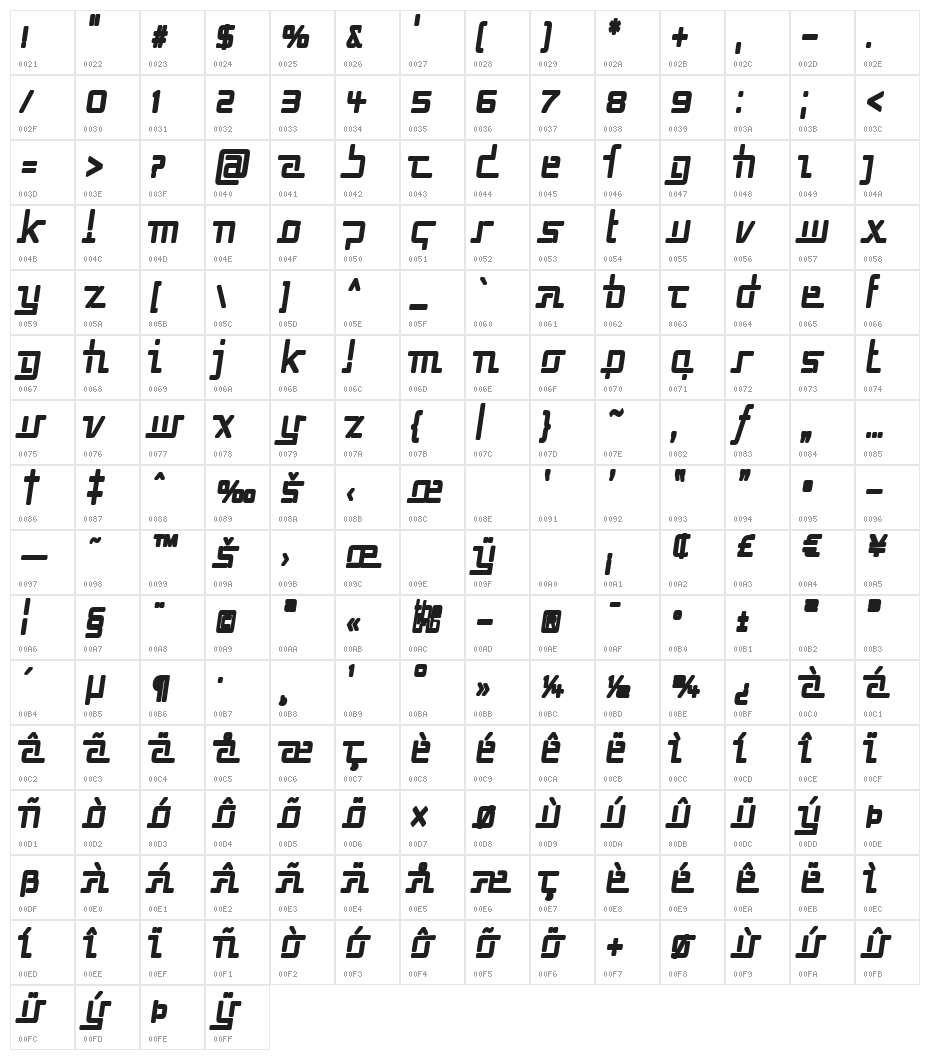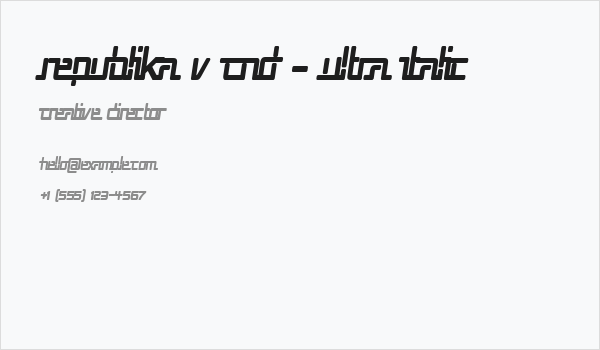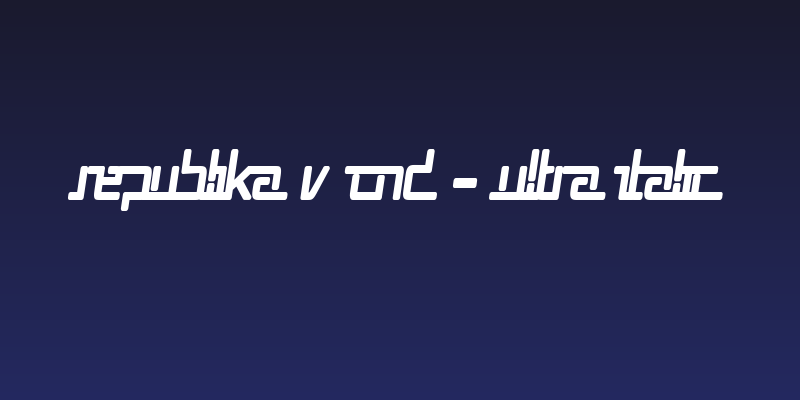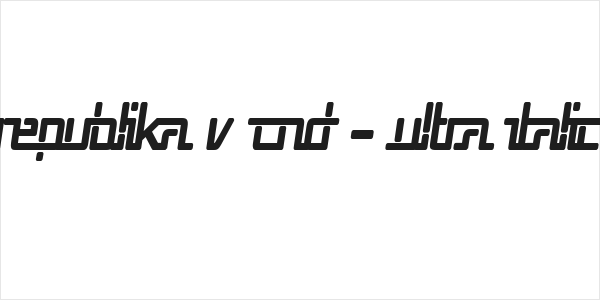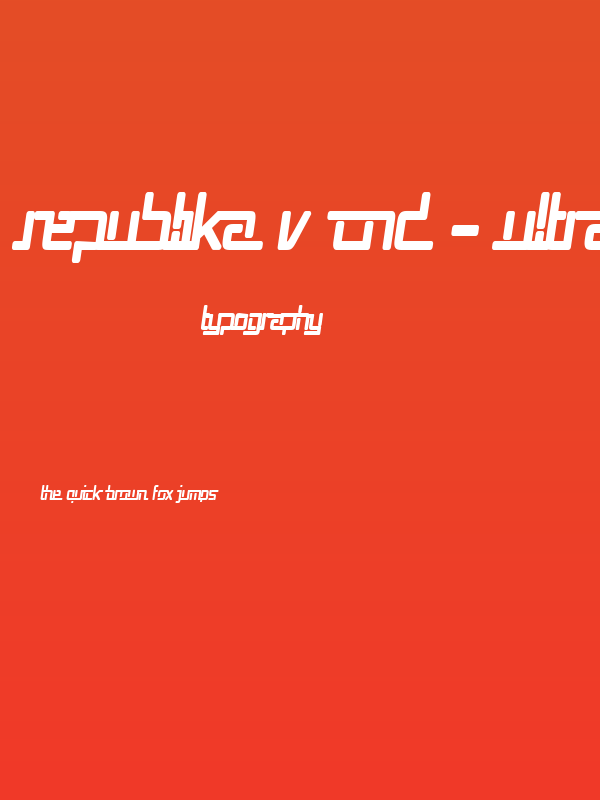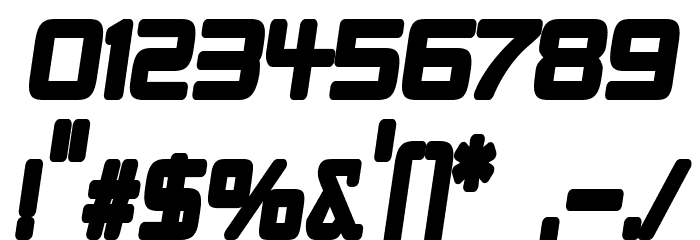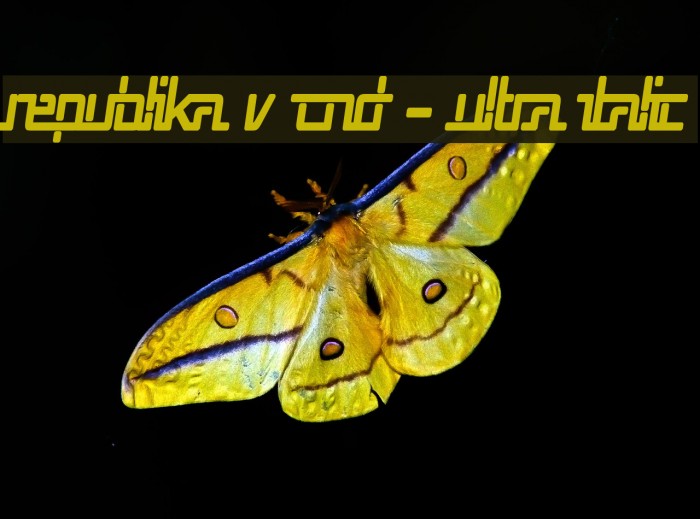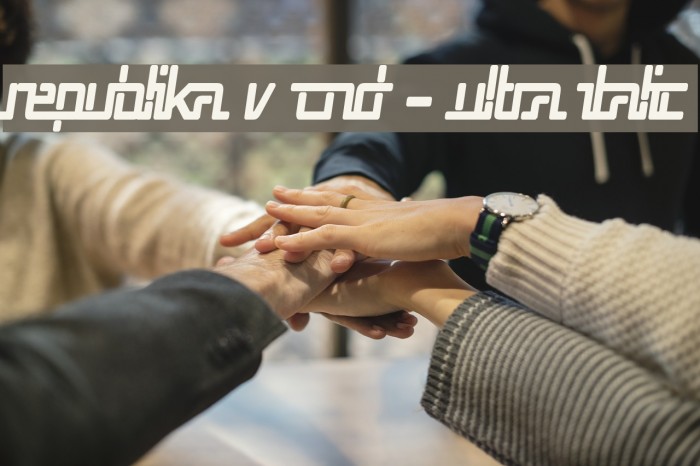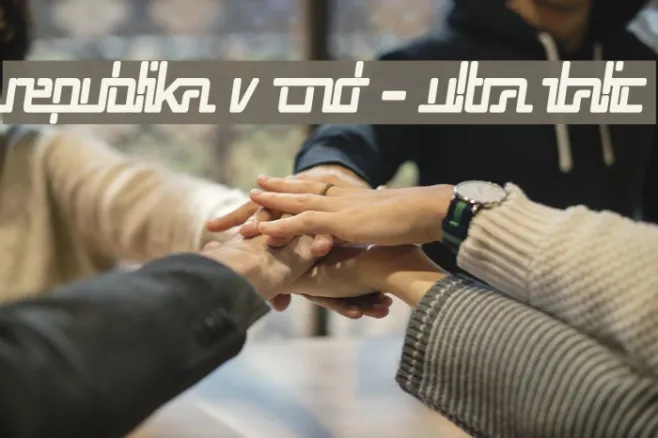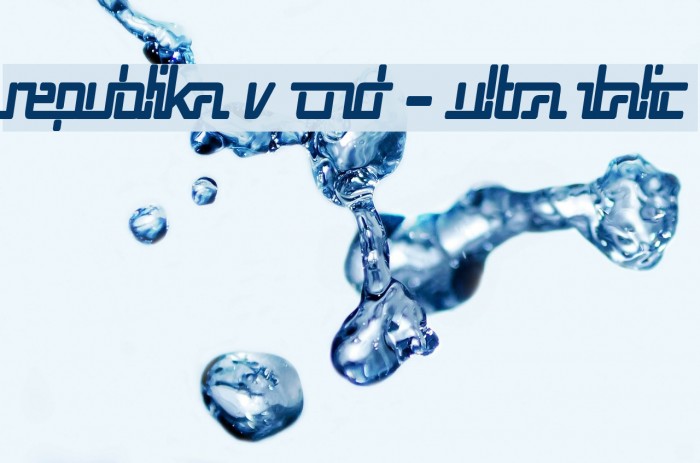
Republika V Cnd - Ultra Italic Font
Republika V Cnd - Ultra Italic Description
This font features a bold, ultra-condensed style with a distinct italic slant, giving it a dynamic and modern appearance. The characters are designed with a geometric structure, incorporating sharp angles and smooth curves that create a sense of movement. The uppercase and lowercase letters maintain a consistent height, contributing to a uniform and cohesive look. The numerals and special characters follow the same design principles, ensuring visual harmony across all elements. The font's thick strokes and tight spacing make it highly legible, even at smaller sizes, while its unique style adds a touch of sophistication and flair.
| Use Case | Logos, Headlines, Branding |
| Proposed Projects | Ideal for futuristic branding, tech-related designs, sports team logos, and modern advertising campaigns. |